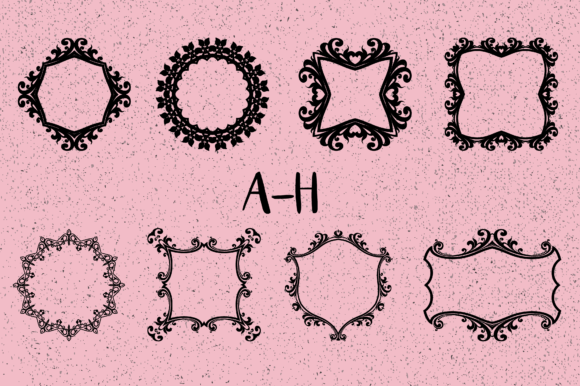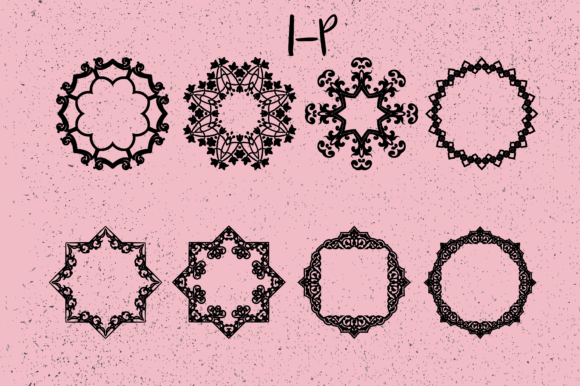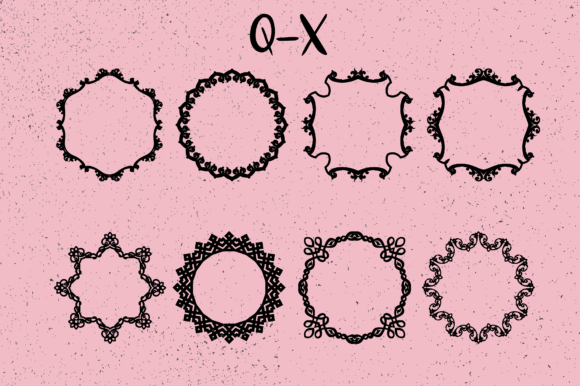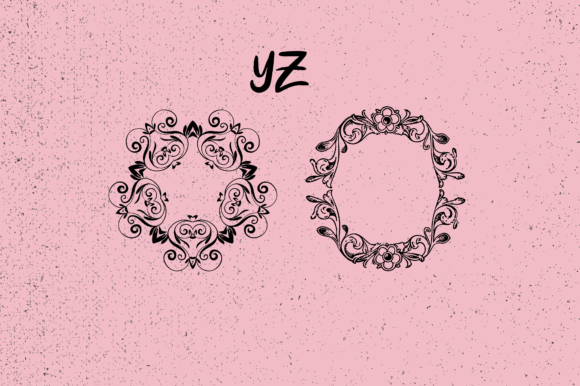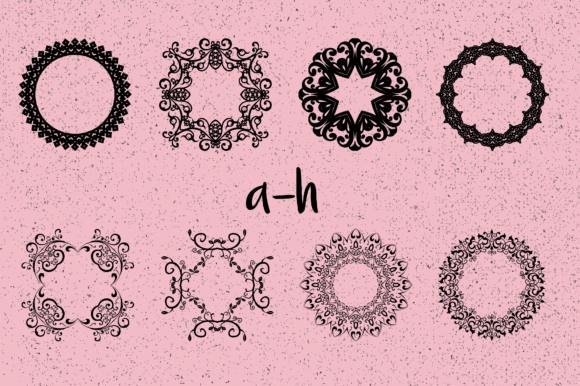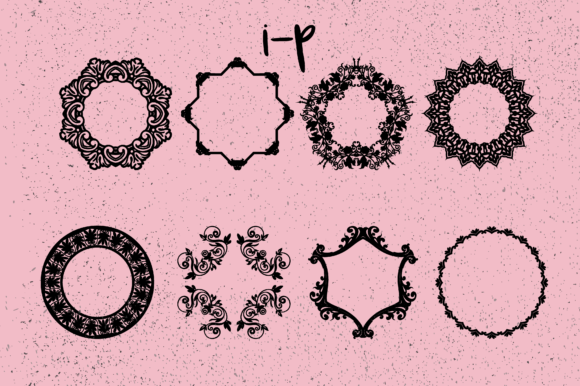
Introduction to Frames Creator 4.0 Font
Frames Creator 4.
0 is an incredibly unique and original dingbats font It can be added to each of your creations and notice how easily they stand out.
Key Features of Frames Creator 4.0 Font
Why Choose Frames Creator 4.0 Font?
Frames Creator 4.0 Font offers exceptional quality and versatility, making it a valuable addition to your design toolkit. Whether you’re creating for personal projects or commercial use, Frames Creator 4.0 Font delivers professional results.